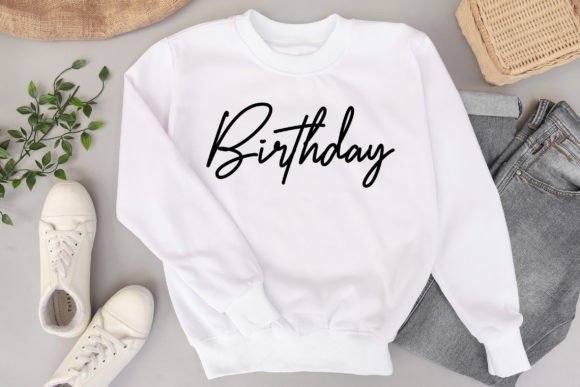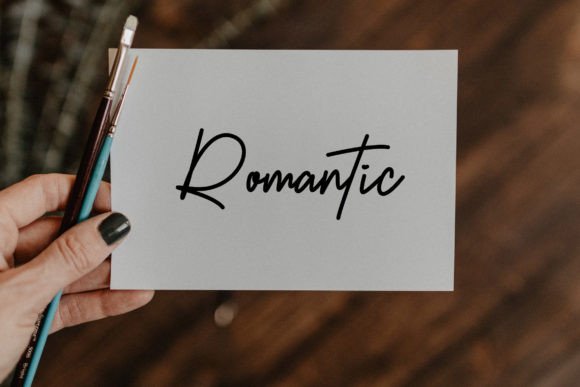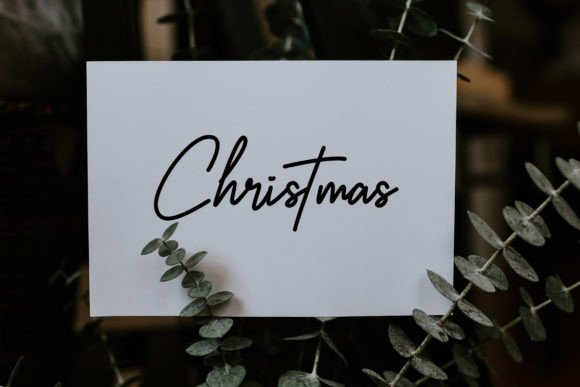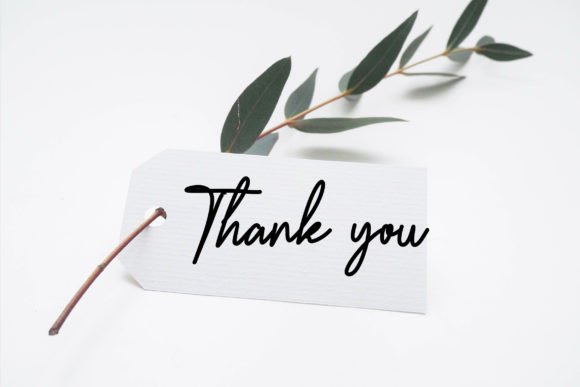
Give Your Designs a Personal Touch with Handraw Font
You know that moment when you’re working on a project and suddenly, a spark of creativity hits you? It’s like the whole world has come alive, and every idea feels like a masterpiece waiting to happen. For designers, this feeling is a constant companion, guiding us through the twists and turns of bringing a vision to life. And that’s exactly where the Handraw Font comes in – a beautifully crafted handwritten font that’s perfect for adding that extra oomph to your designs.
Whether you’re creating wall displays, wedding invitations, or social media post logos, the Handraw Font is the perfect tool to elevate your designs. Its stylish and elegant style makes it a valuable asset for any designer looking to take their work to the next level. With its versatility and endless possibilities, the Handraw Font is an absolute must-have for anyone looking to add a personal touch to their projects.
Key Features of Handraw Font
- Unique Characteristics: Handraw Font features a unique, hand-drawn design with intricate details and subtle imperfections, giving it a distinctive and creative feel.
- Customizable: The font includes a wide range of OpenType features, such as ligatures, swashes, and ornaments, allowing designers to customize the font to suit their specific needs.
- Scalability: The font is designed to be highly scalable, ensuring that it looks great in both small and large sizes, from body text to headlines and titles.
Handraw Font Review
Overall, I was pleasantly surprised by the Handraw Font. It’s a beautiful, hand-drawn font that’s perfect for adding a personal touch to your designs.
- ✨ Unique and beautiful hand-drawn style that sets it apart from other fonts.
- ✨ Wide range of characters, including international characters, making it a great choice for global designs.
- ⚠️ Some characters may be difficult to read due to the hand-drawn style, particularly at small font sizes.
- ⚠️ The font may not be suitable for body text due to its decorative nature.
- ⚠️ Limited font weights and styles, which may limit its versatility in certain design applications.
In conclusion, the Handraw Font is a great choice for designers looking to add a unique touch to their projects. While it may have some limitations, its beauty and versatility make it a valuable addition to any design toolkit.
Handdraw Font Practical Application Guide
Handdraw Font is ideal for creating:
- Custom illustrations and designs
- Personalized invitations and cards
- Brand logos and typography
- Wedding and event graphics
Remember to experiment with different font sizes, colors, and styles to get the most out of Handdraw Font.
Alternatives to Handraw Font
Great Vibes is a modern, elegant script font that is perfect for creating a sophisticated and stylish design. It is ideal for use in headings, titles, and any text that requires a touch of elegance. Compared to Handraw Font, Great Vibes has a more refined and polished look, making it suitable for high-end designs.
Pacifico is a beautiful, cursive script font that is perfect for creating a warm and inviting design. It is ideal for use in headings, titles, and any text that requires a touch of warmth and personality. Compared to Handraw Font, Pacifico has a more relaxed and casual feel, making it suitable for designs that require a friendly and approachable tone.
Dancing Script is a lively, elegant script font that is perfect for creating a fun and playful design. It is ideal for use in headings, titles, and any text that requires a touch of whimsy and personality. Compared to Handraw Font, Dancing Script has a more dynamic and energetic feel, making it suitable for designs that require a bold and attention-grabbing tone.